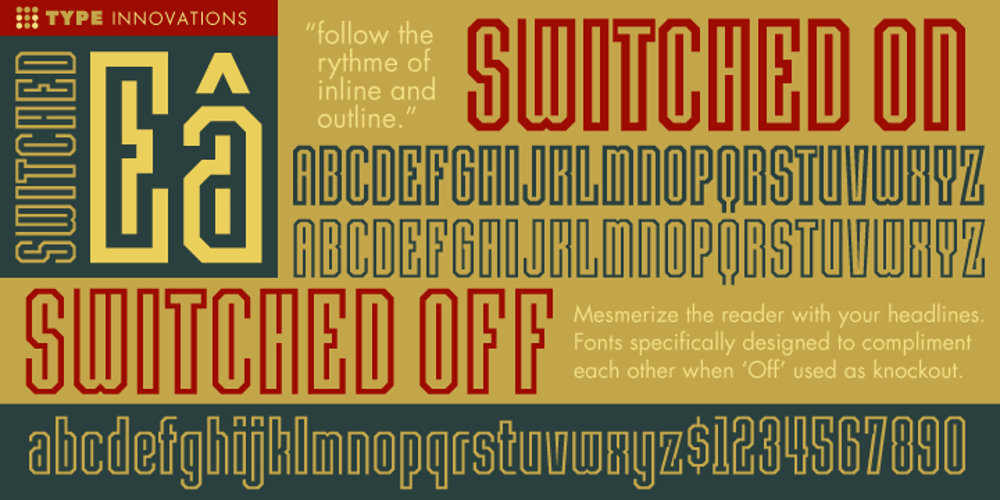
Switched On
Switched On font
Switched On Font Family was designed by Alex Kaczun and published by Type Innovations. Switched On contains 2 styles and family package options. Switched On and Switched Off where two fonts developed by placing points on a pre-defined square grid template. The experiment was to explore all the variations possible by just using straight connecting lines on a grid. I stumbled on the final concept, almost accidentally, and was amazed by the numerous possibilities. Both designs where created to work together. By adjusting the stroke and inline proportions between the two fonts, I was able to achieve a good overall color balance between ‘Switched On’ (dark letters on a light background), and the ‘Switched Off’ design as a knockout treatment (light letters on a dark background). Used in this way, both fonts visually appear similar in overall weight and proportion. They harmonize well together. Used separately, they make for some interesting visual effects and headline treatments. The fonts are best used at large point sizes, but they are still legible in a variety of smaller sizes. I think that by experimenting with these two fonts one can achieve some stunning visual effects. Explore and have fun.